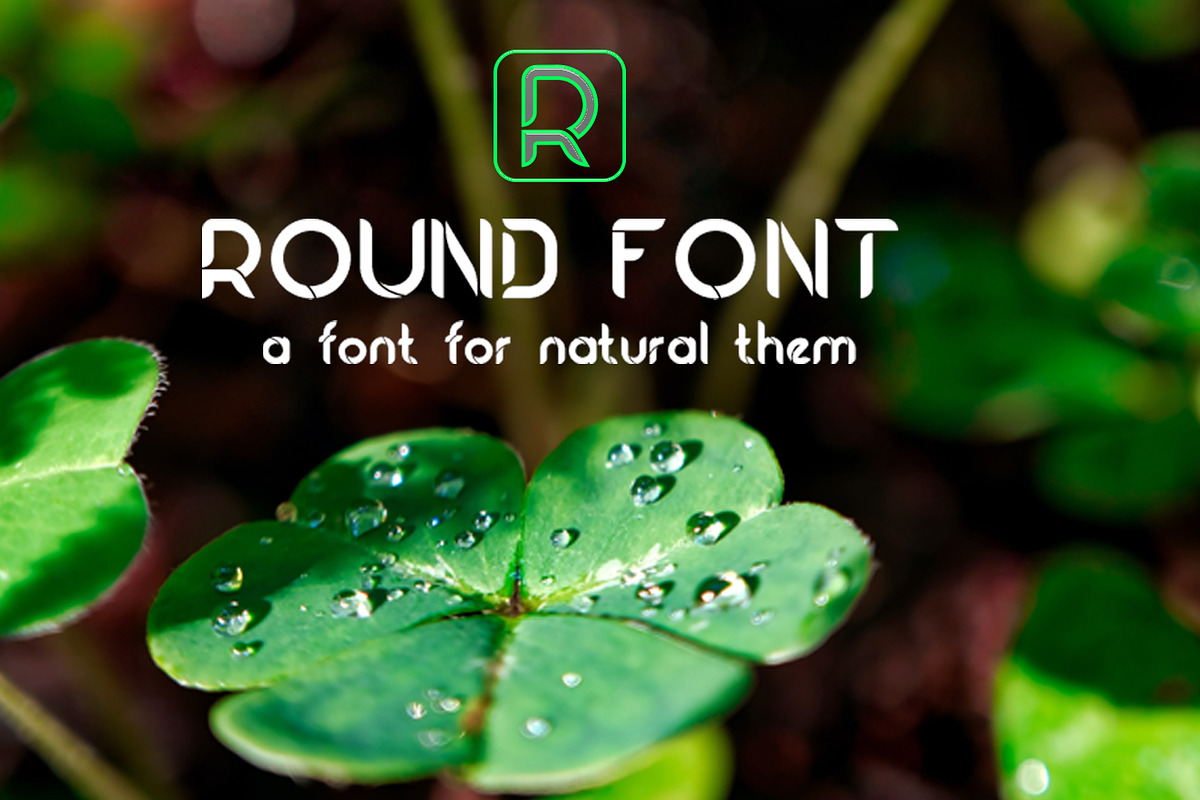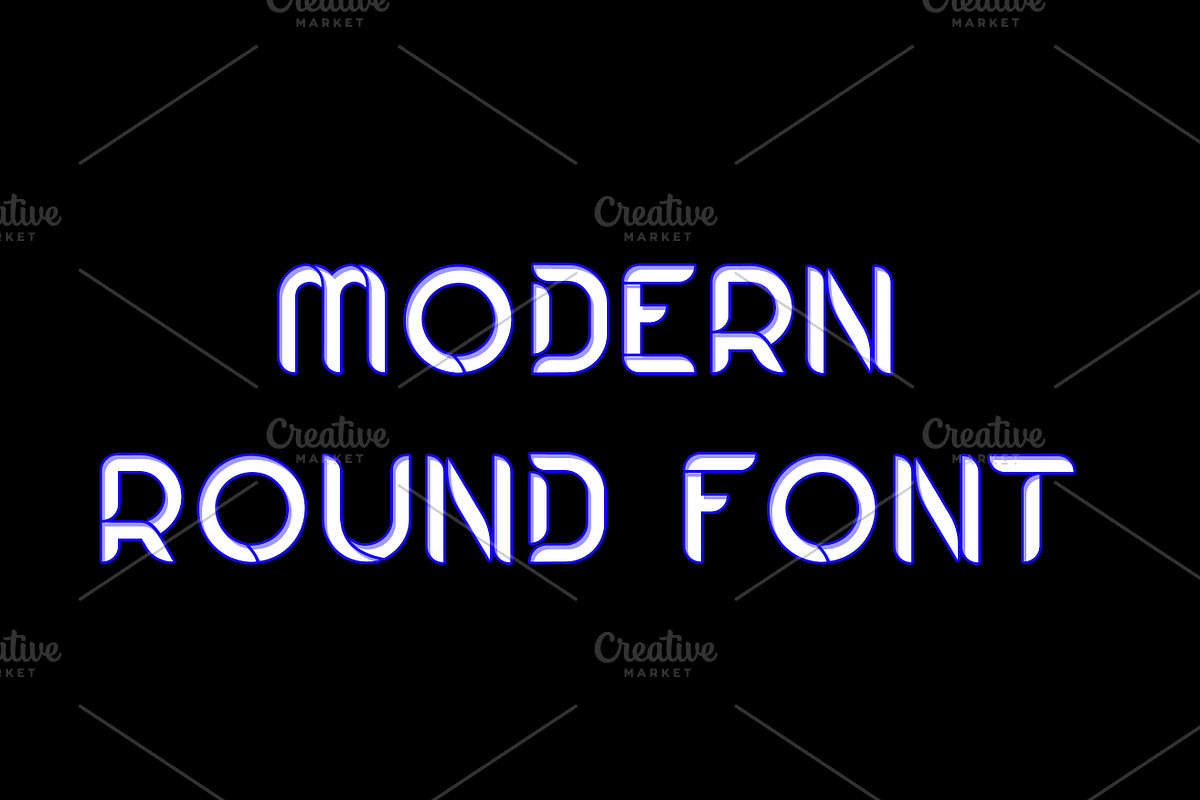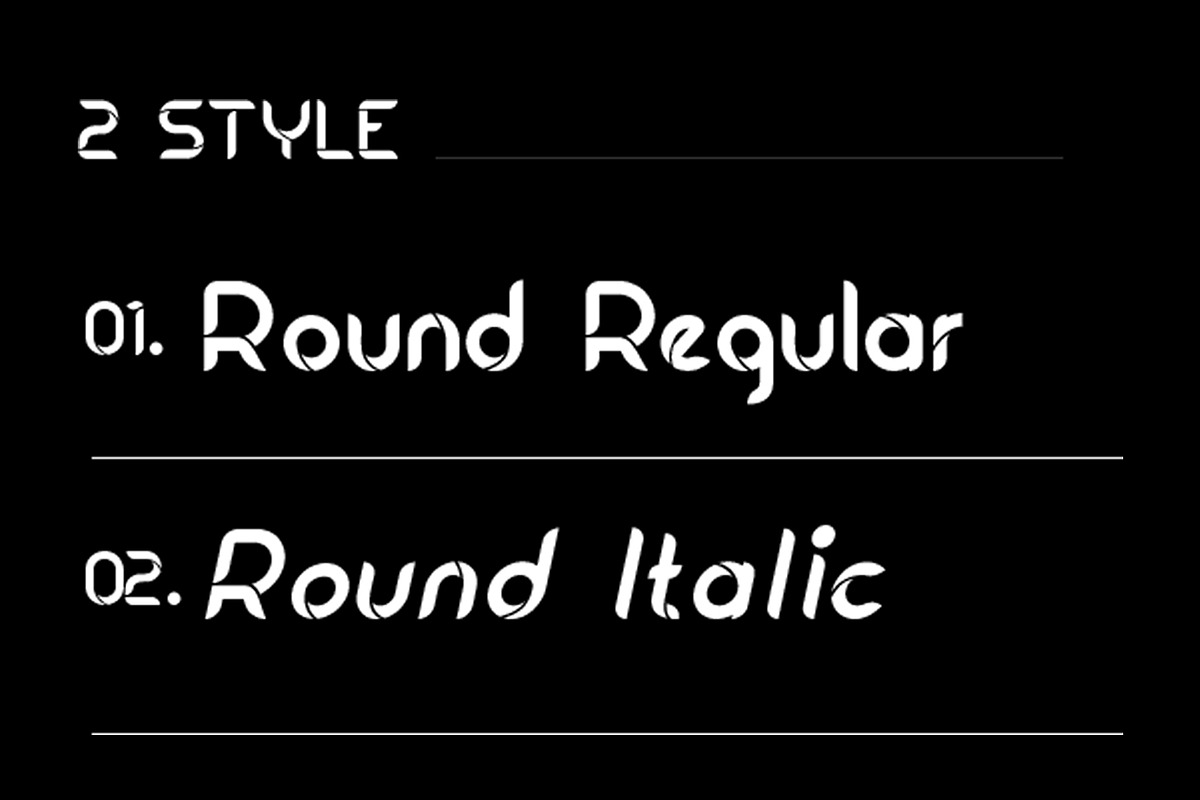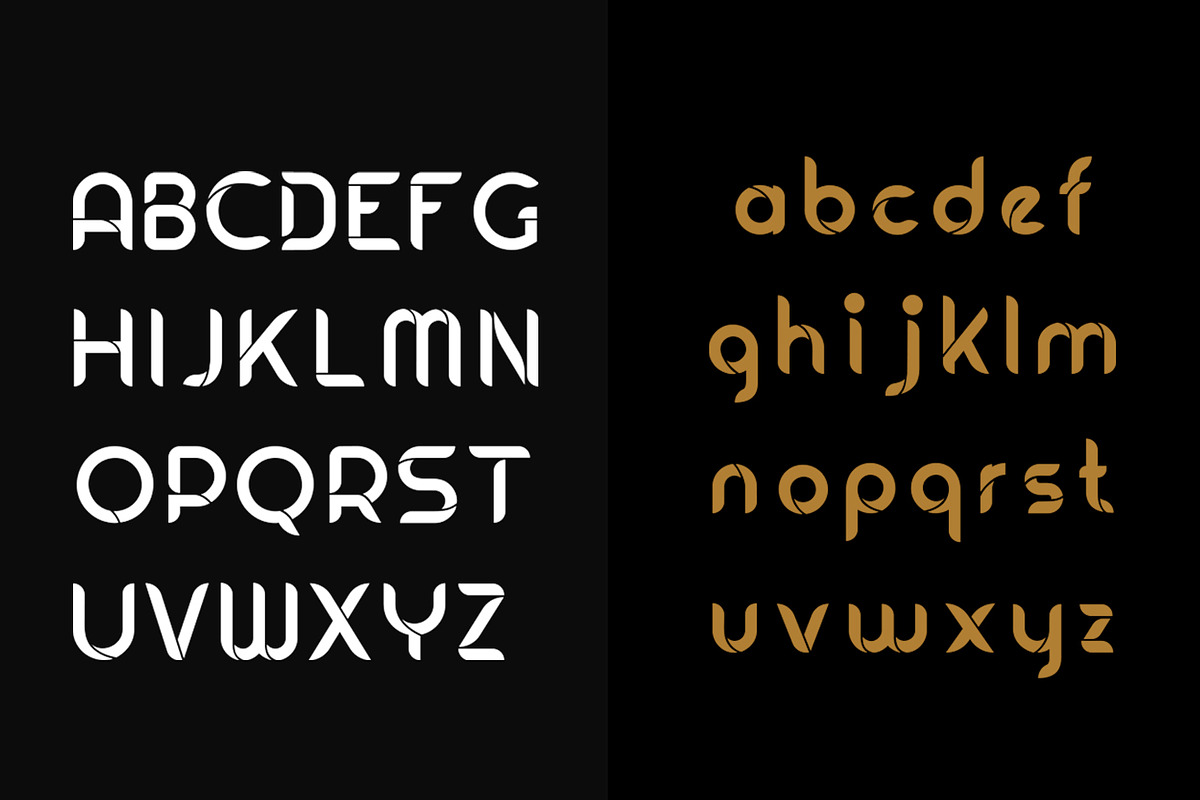
Round Font
" Round Font Font is a stylish Font. Available in Regular , Italic , Font version with all special characters.
It’s useful for any Design project. card, e-card, Good for Logos & Headlines, Poster, Tag design, Newspaper & Magazine Ad Design and many more. True type and Open type font files